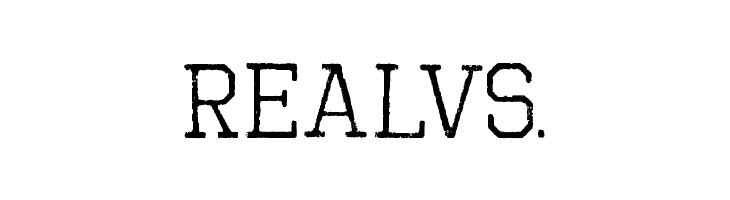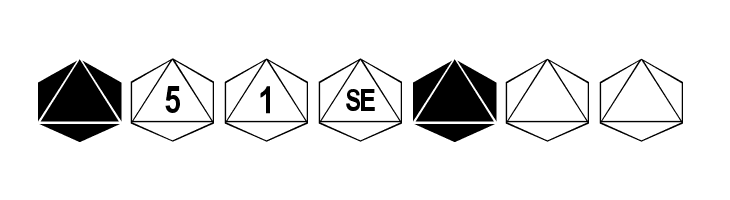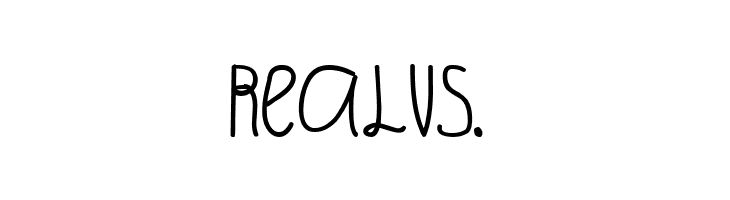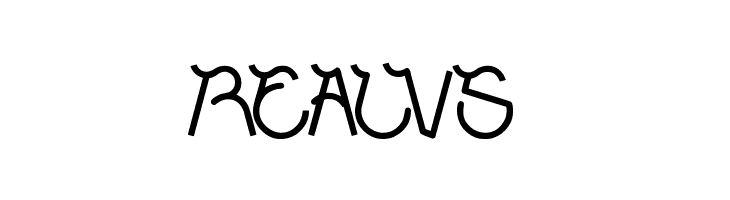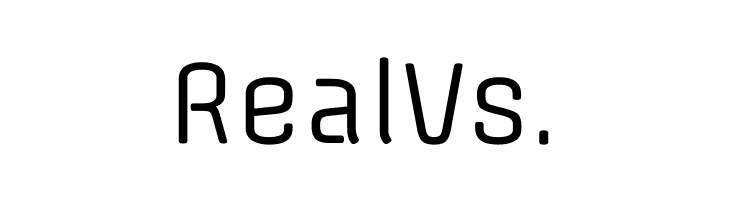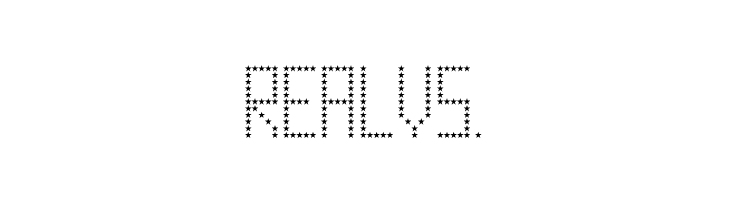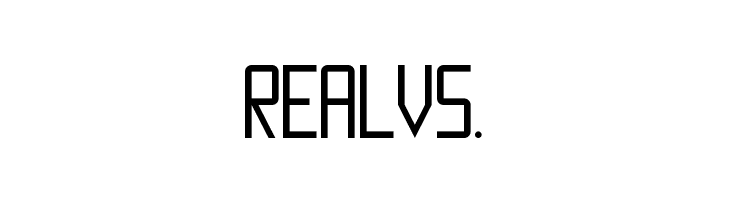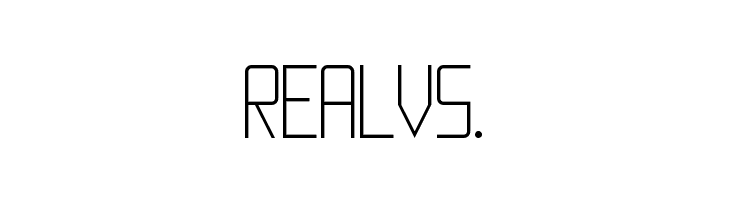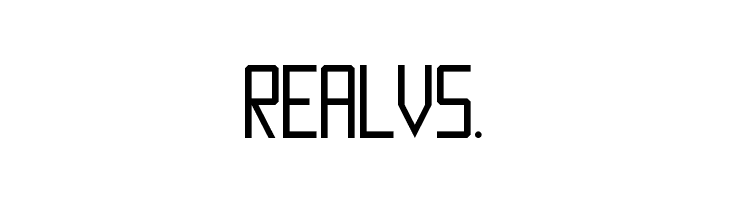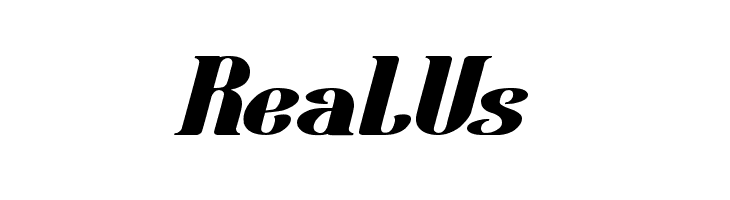
• NueMedium
( Fonts by exe.vis.ne.jp )
A modern, tall, and narrow font with clean lines and minimal curves.
• nuevostencil filled
A bold, modern stencil font with filled, rounded edges and dynamic cut-out sections.
• nuevostencil hollow
A modern, hollow stencil font with smooth curves and rounded edges.
• nuevostencil tilted
A dynamic, stencil-inspired font with angular strokes and a modern tilt.
• Numbat Regular
( font studio four - www.hellofont.com/fonts/843?a=EL1 )
A modern, dotted font with a geometric and digital appearance.
• NUMBER 18000!!!
• Number 19000 Block Regular
• Number 19000 Party Regular
• Number 19000 Regular
• Number 19000 Thin Regular
• number one Regular
( mr eel )
A bold, geometric font with a futuristic and digital aesthetic.
• Numero 10
A bold, distressed font with a vintage, industrial look.
• Nunanunong Demo
• NVDAASDAWADIDOHI
• nymeria
( Anja Pöchhacker )
A modern, geometric font with rounded edges and a sleek design.
• Obese & Square KK
( koeiekat - koeiekat.com )
A bold, geometric font with angular shapes and solid fills, ideal for impactful designs.
• ocean free
A decorative font with swirling, wave-like elements and consistent stroke weight.
• ocean free
• oceanography
A bold and dynamic serif font with a slight slant and strong presence.
• Ocho Siete
A modern, minimalist font with thin lines and geometric shapes.
• Ocho Siete